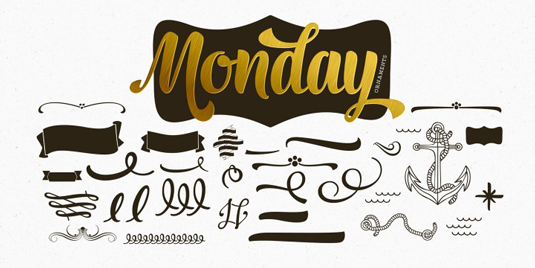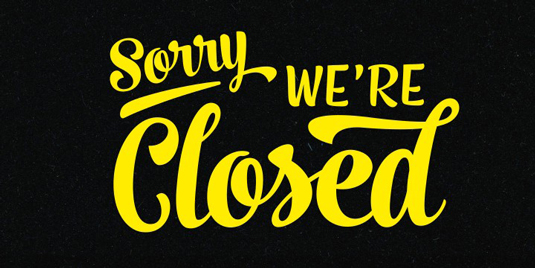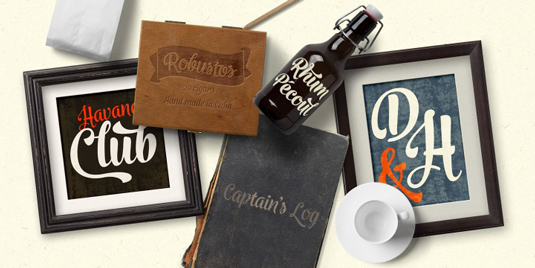
Font of the day: Monday
Monday from Fenotype
Kicking our fonts of the day posts this week is the aptly titled Monday from font foundry Fenotype. A bold, strong script family, Monday consists of two weights and a matching ornament set. Available from Fontspring, it is described as having a 'polished 1950s hand lettering feeling to it, and is ideal for logo, packaging and brand design purposes'.